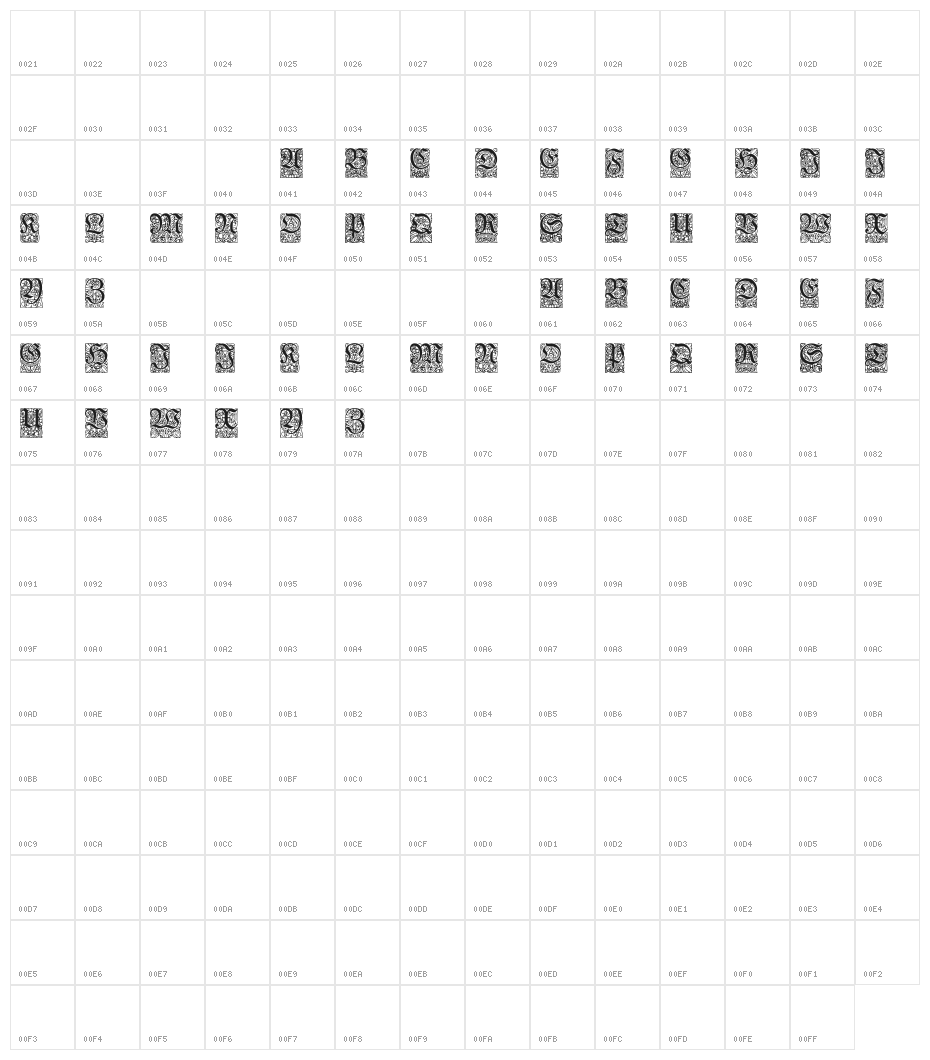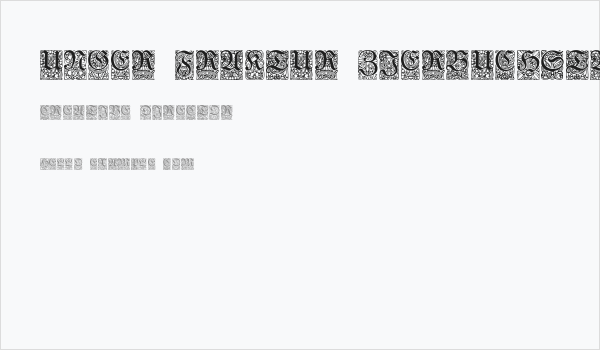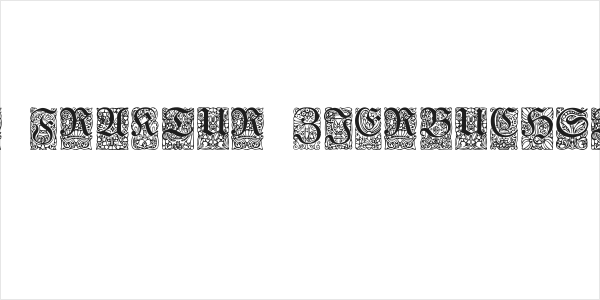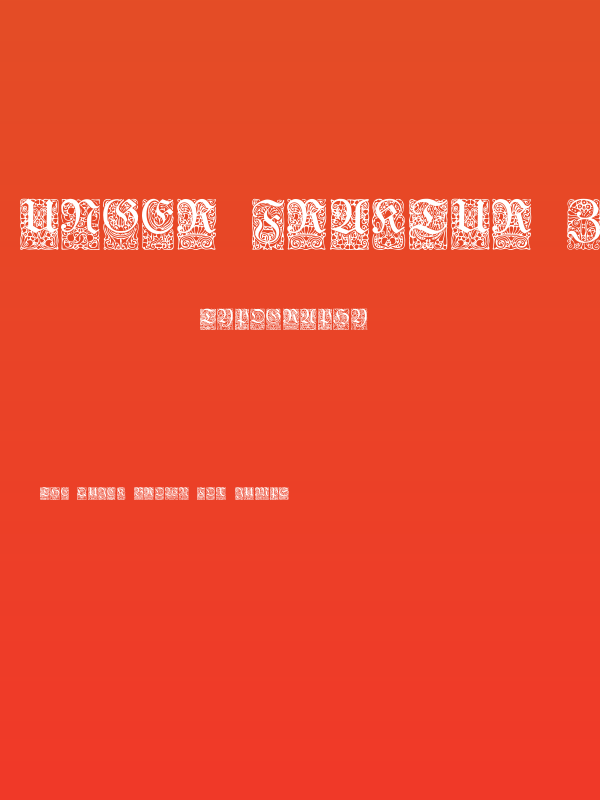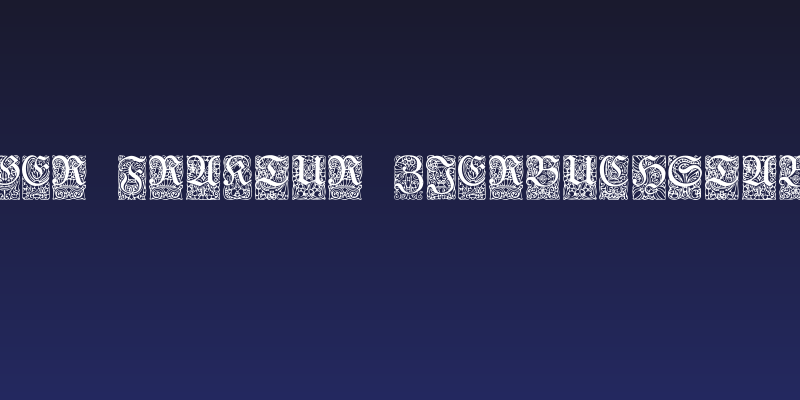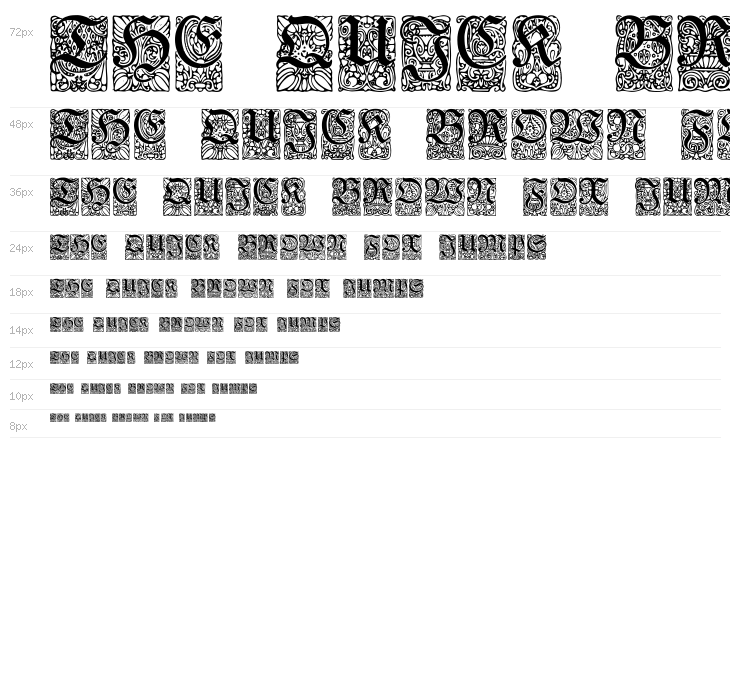
Unger-Fraktur Zierbuchstaben Font
Unger-Fraktur Zierbuchstaben Description
This font is a highly decorative and intricate typeface that features elaborate embellishments within each character. The design is reminiscent of traditional blackletter styles, with a modern twist that incorporates ornate floral and vine motifs. Each letter is enclosed within a rectangular border, adding a structured yet artistic feel. The complexity of the design makes it suitable for projects that require a touch of elegance and historical charm. The font's detailed nature suggests a careful and deliberate crafting process, making it ideal for special occasions or themed designs.
| Proposed Projects | Ideal for wedding invitations, historical themed events, book covers, and decorative posters. |